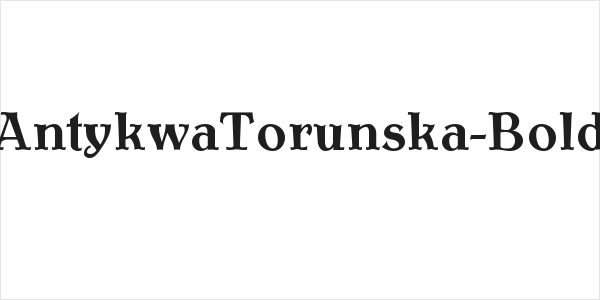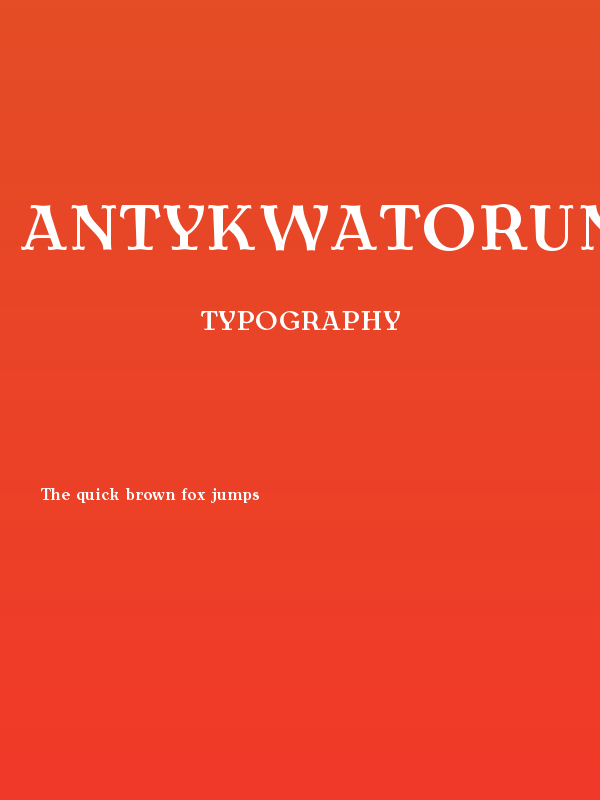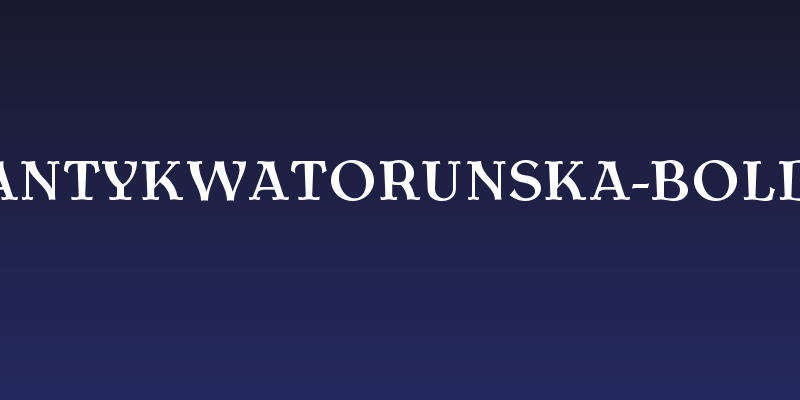
AntykwaTorunska-Bold Font
AntykwaTorunska-Bold Description
This font features a bold and classic serif style with strong, pronounced strokes and a traditional appearance. The uppercase letters exhibit a robust and authoritative presence, while the lowercase letters maintain a harmonious balance with slightly rounded edges. The numerals are clear and legible, complementing the overall design. Special characters are well-integrated, maintaining the font's cohesive look. This typeface exudes a timeless elegance, making it suitable for a variety of formal and professional applications.